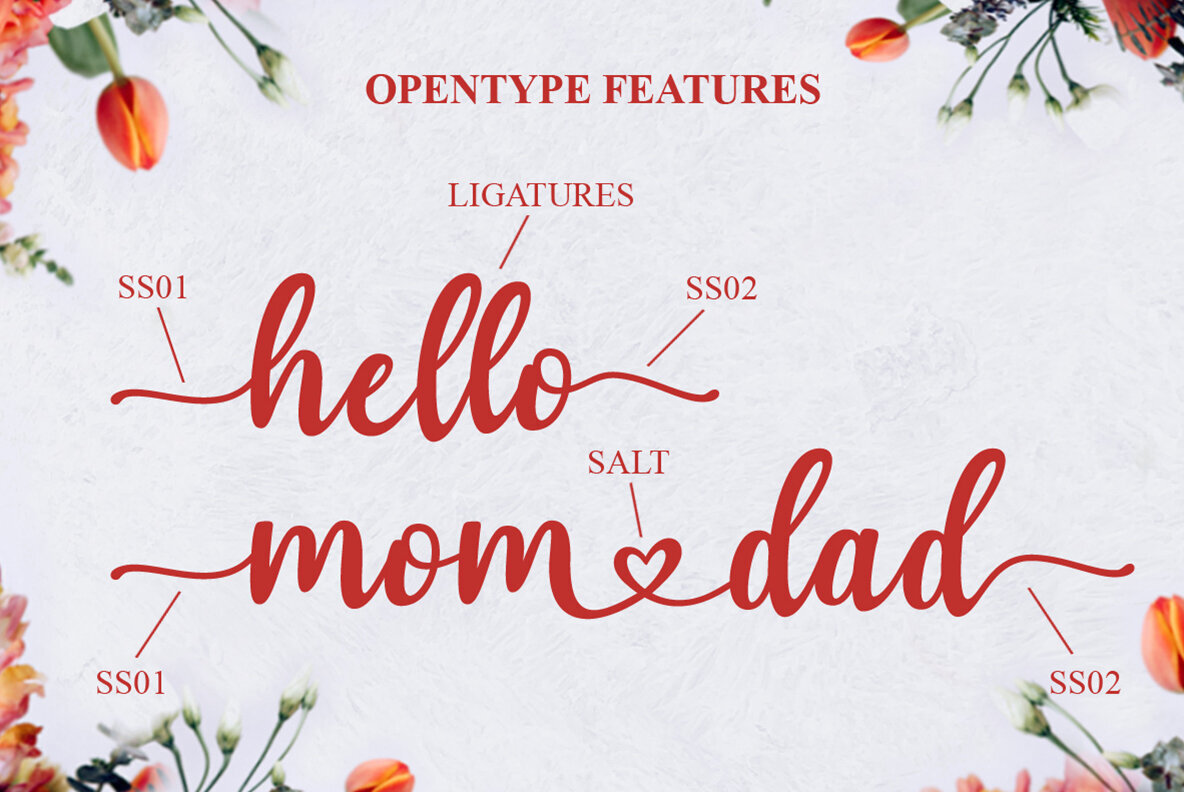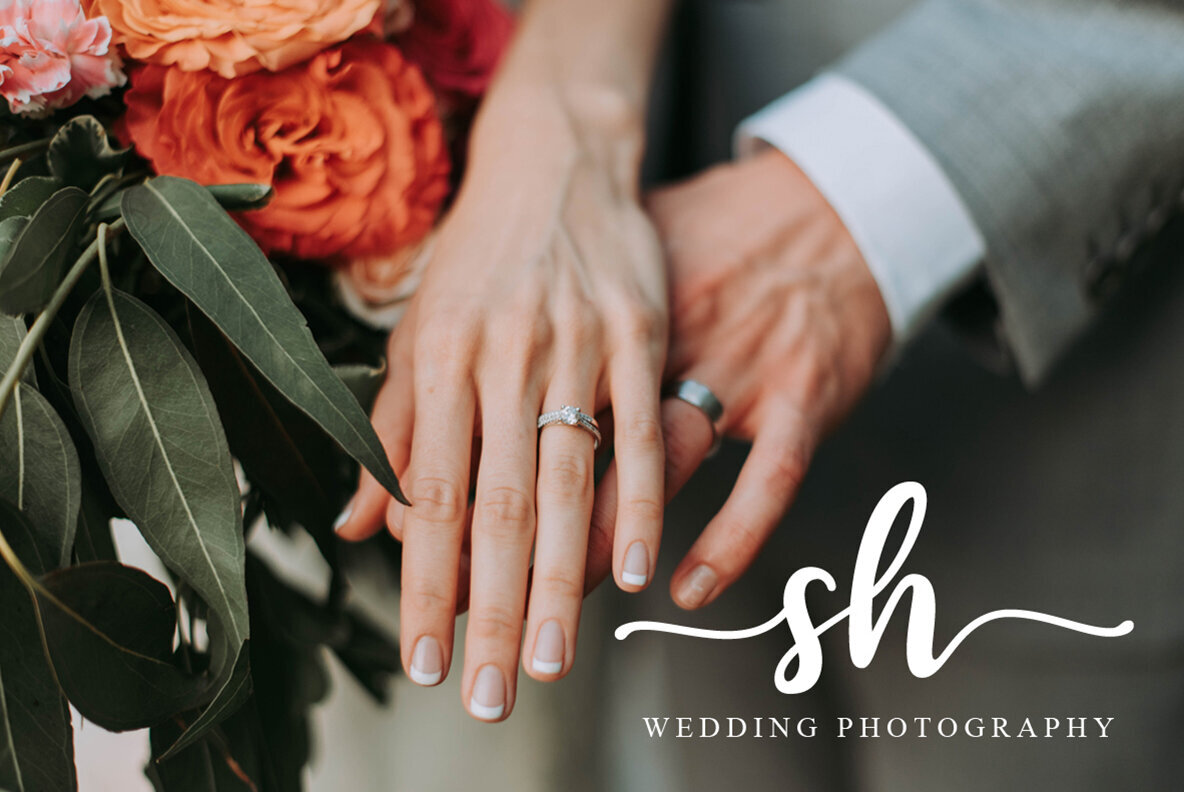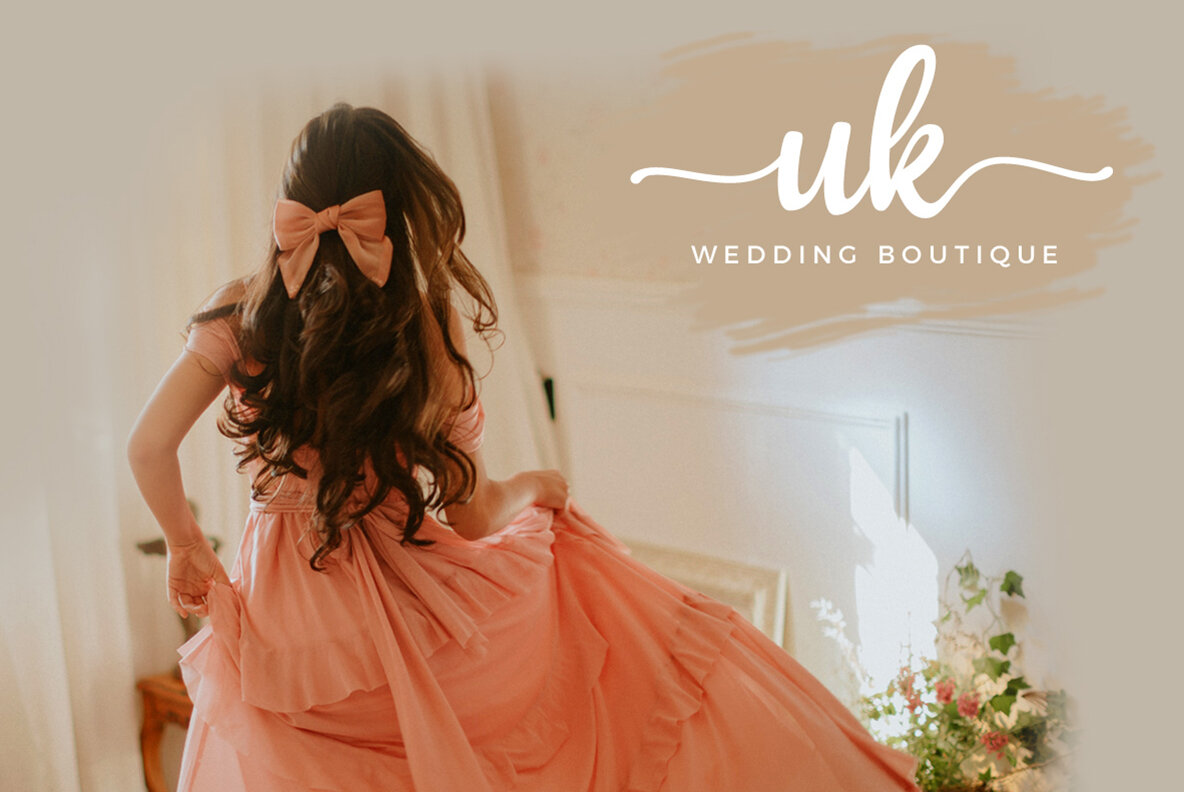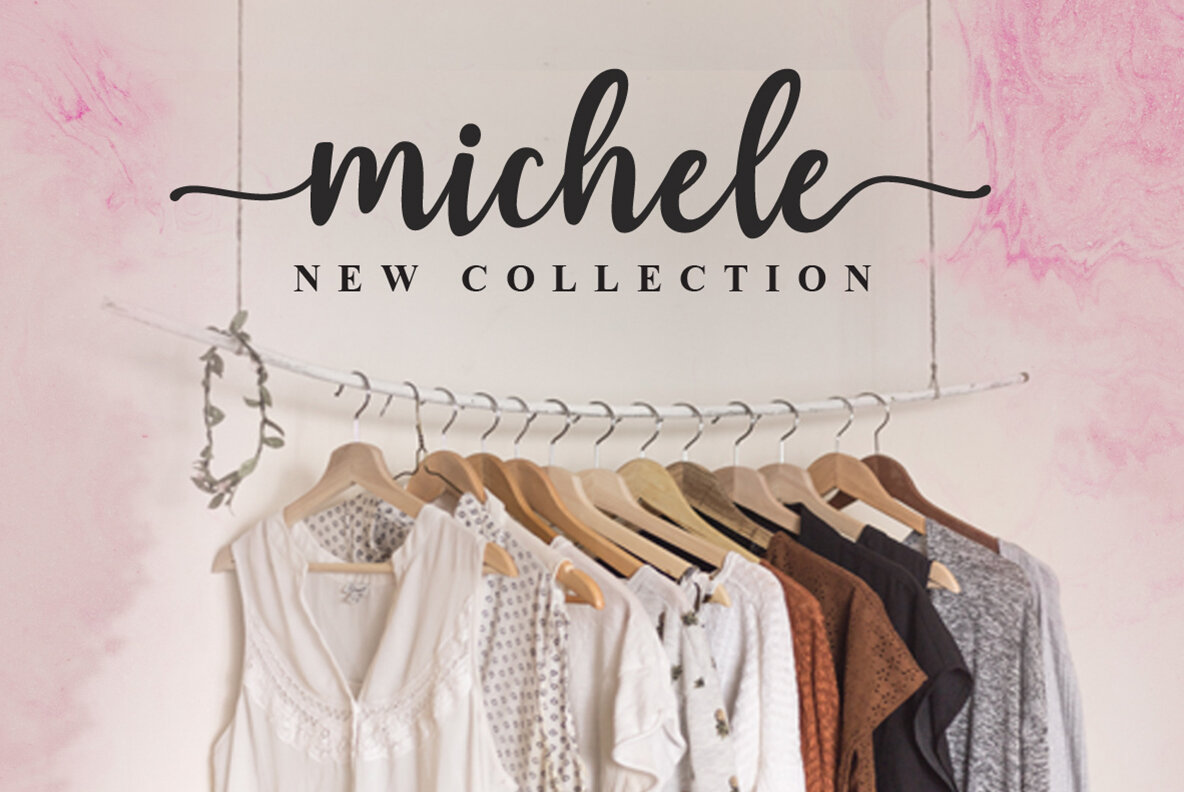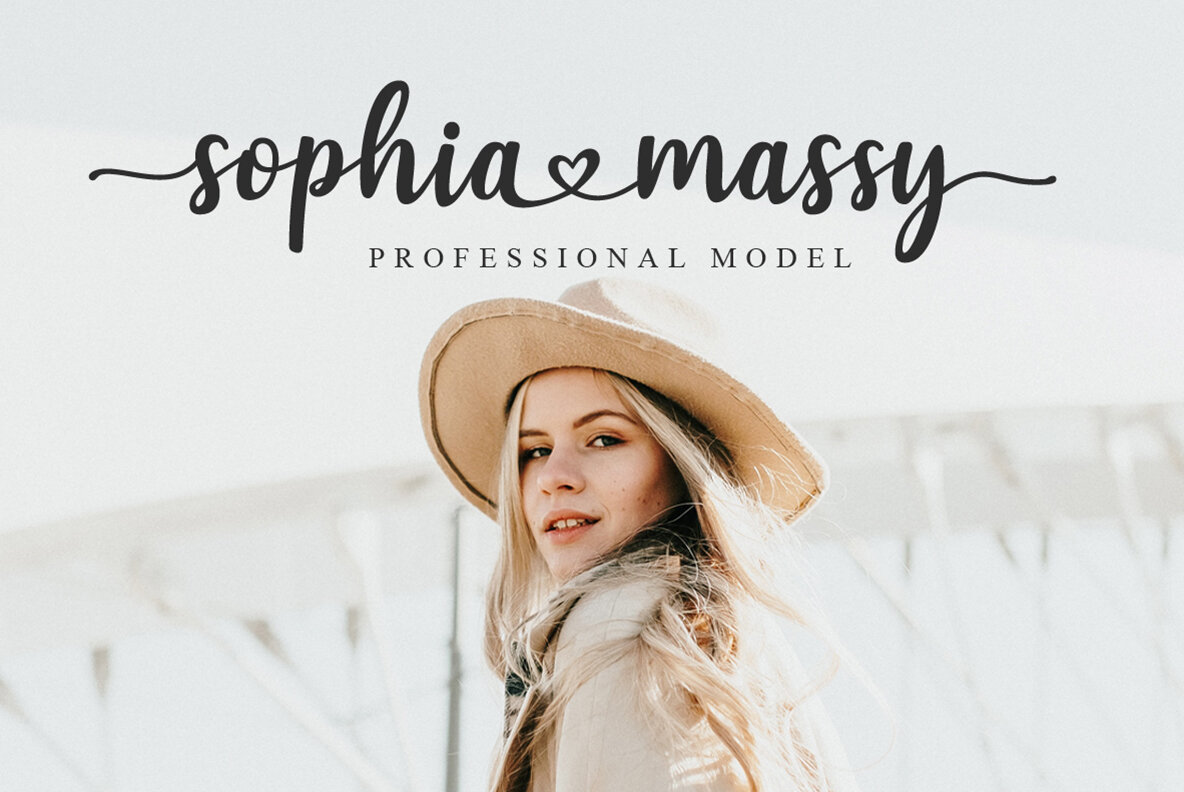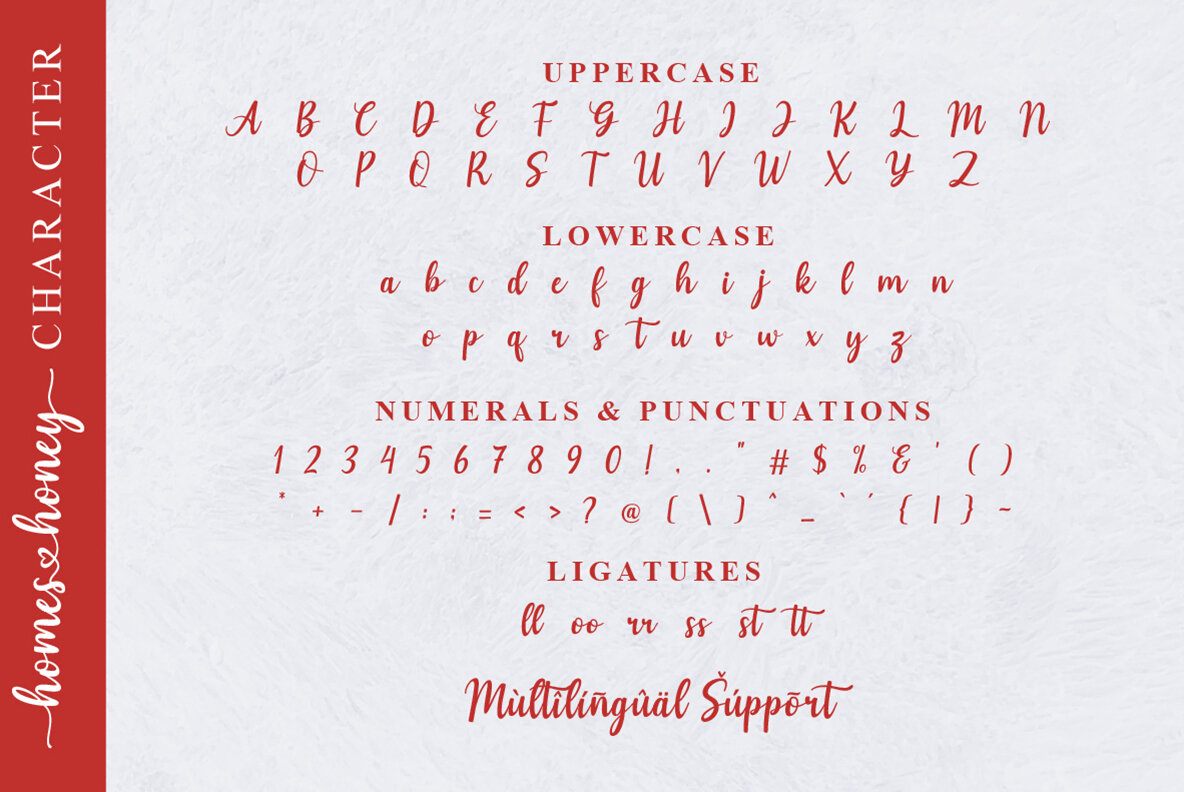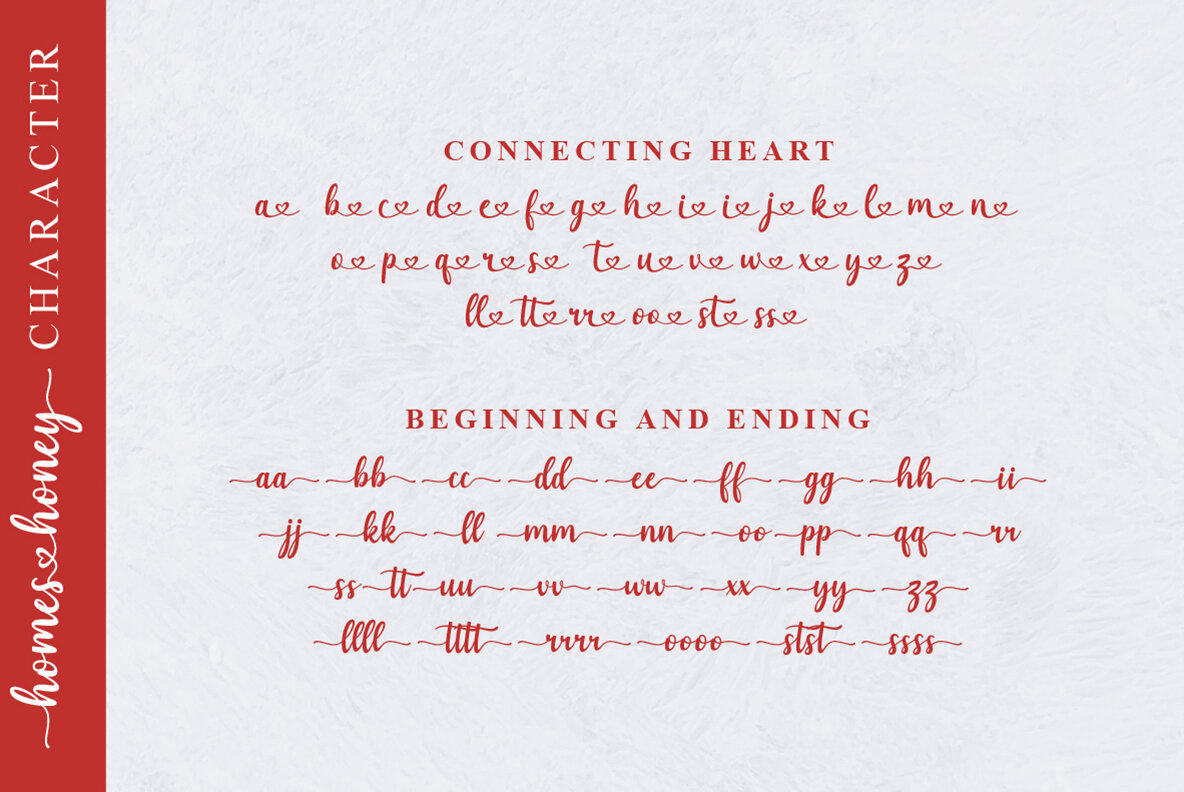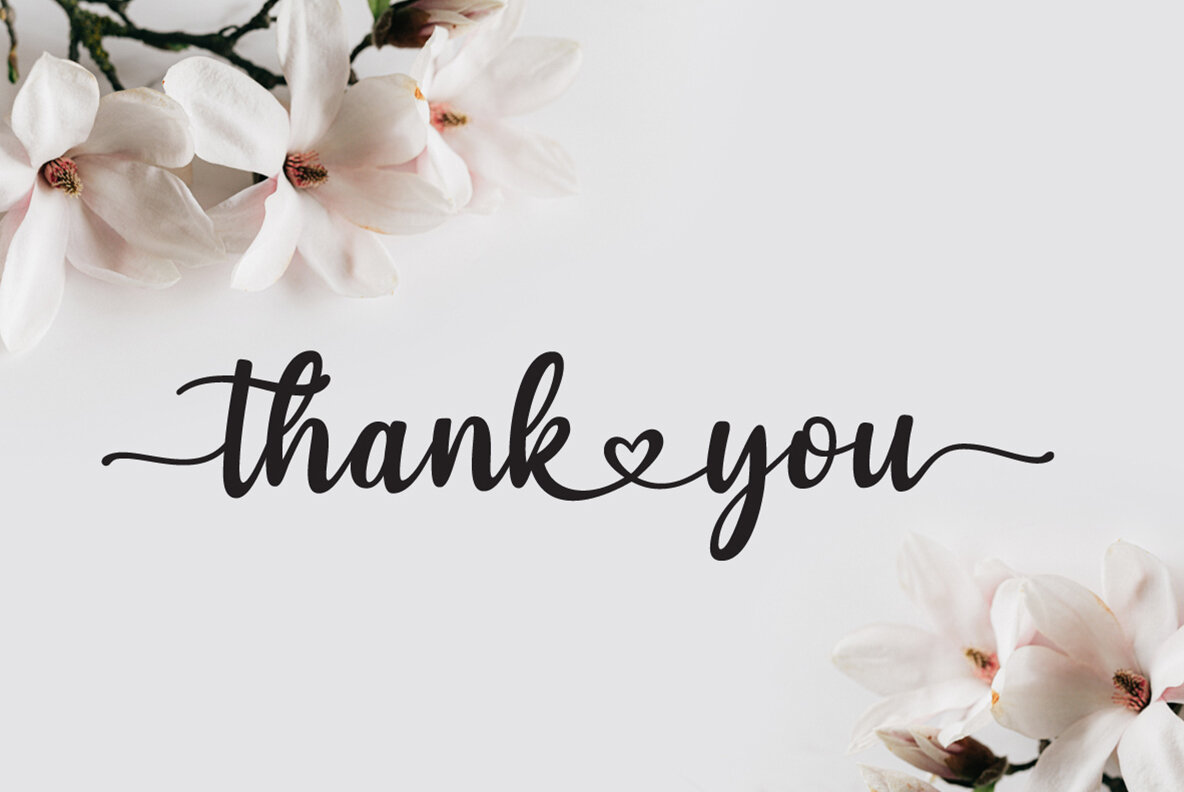
Homes Honey Font
Homes Honey
Homes Honey is a romantic and sweet calligraphy typeface with characters that dance along the baseline. It will add a luxury spark to branding, wedding invitations, label, logo and other romantic projects.
Features :
- Lowercase beginning and ending swash
- Connecting heart
- Symbol & Number
- Multilingual support